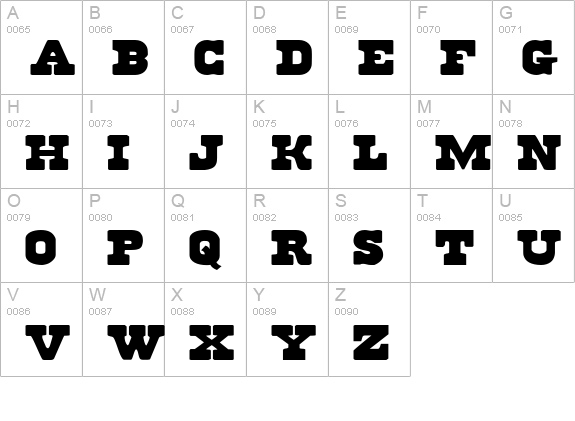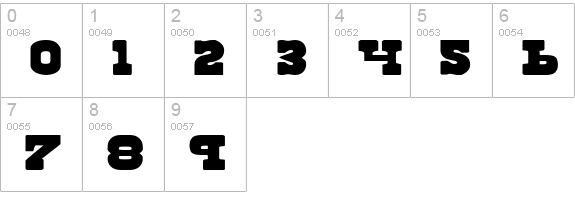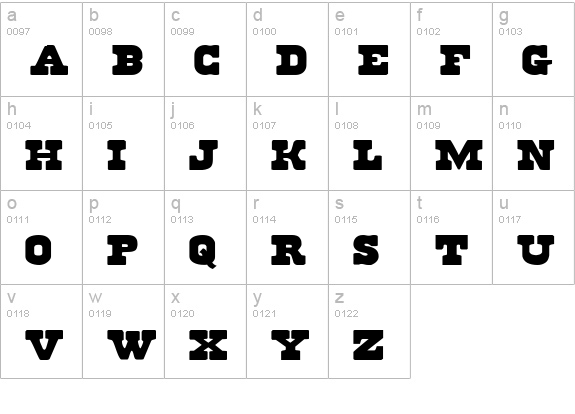
Regulators Expanded Font Details
Regulators Expanded is a distinctive, extended-width variant in the Regulators typeface family \xE2\x80\x94 well suited to design and typography projects.
Introducing Regulators Expanded, a stunning and versatile font that exudes confidence and modernity. This meticulously crafted typeface is tailored for those seeking a bold and impactful design solution. With its expanded letterforms, Regulators Expanded commands attention and makes a statement like no other. Whether you're working on a branding project, editorial design, or simply need a font that stands out, Regulators Expanded has got you covered. Its sleek and contemporary aesthetic adds a touch of sophistication to any project, making it perfect for headlines, titles, logos, and more. Regulators Expanded offers a wide range of weights, from light to bold, enabling you to create dynamic and visually appealing compositions. Its clean lines and strong presence make it an ideal choice for both print and digital applications, ensuring your message is delivered with utmost clarity and impact. One of the most remarkable features of Regulators Expanded is that it is freely available to download at FontsMarket.com. This means that you can effortlessly incorporate this exceptional font into your design projects without any financial burden. The accessibility of Regulators Expanded empowers designers, students, and creatives alike to explore their artistic vision without limitations. So why wait? Elevate your designs with the bold and modern allure of Regulators Expanded. Download this remarkable font today from FontsMarket.com and unlock a world of creative possibilities. With Regulators Expanded, your typography will always make a lasting impression.